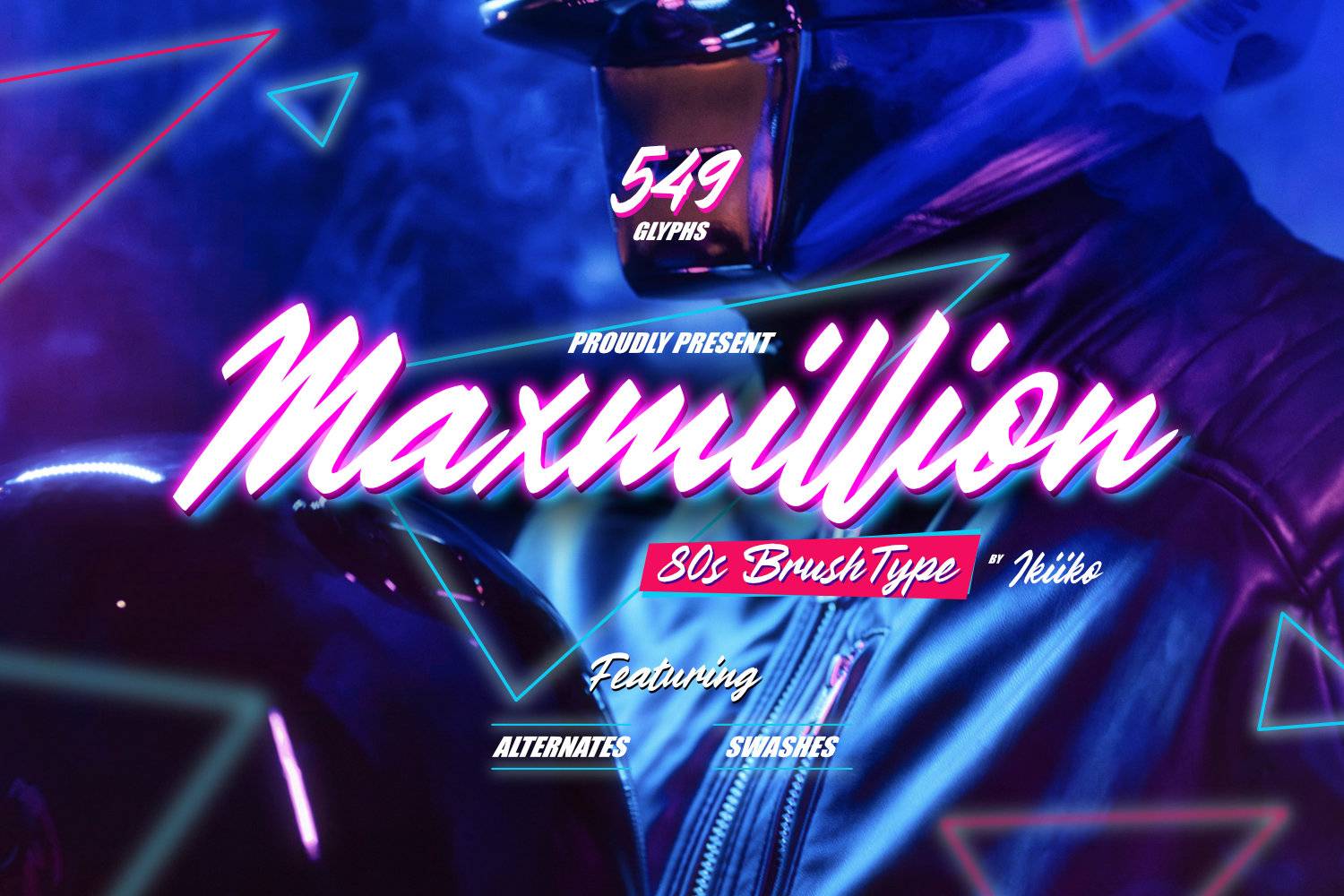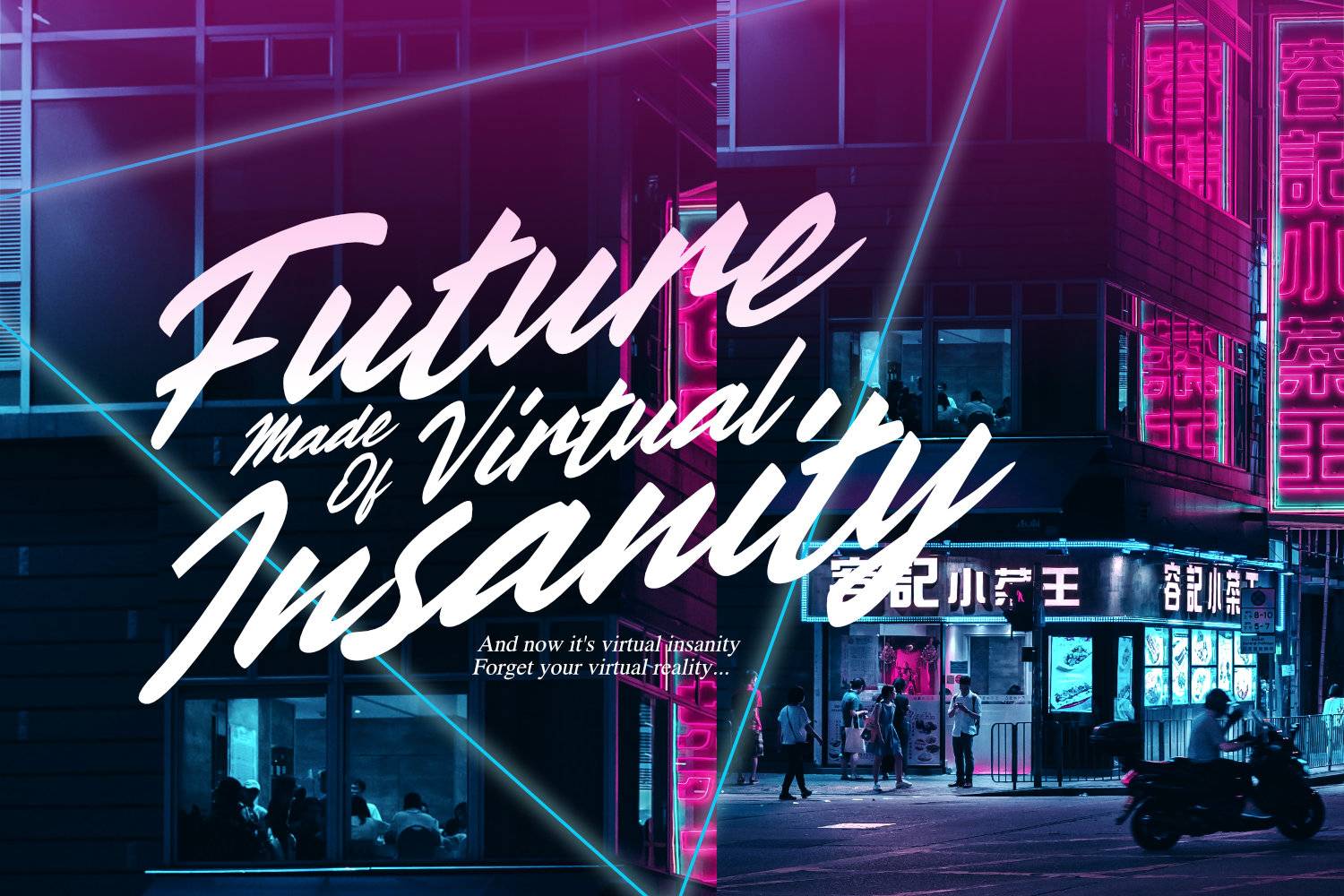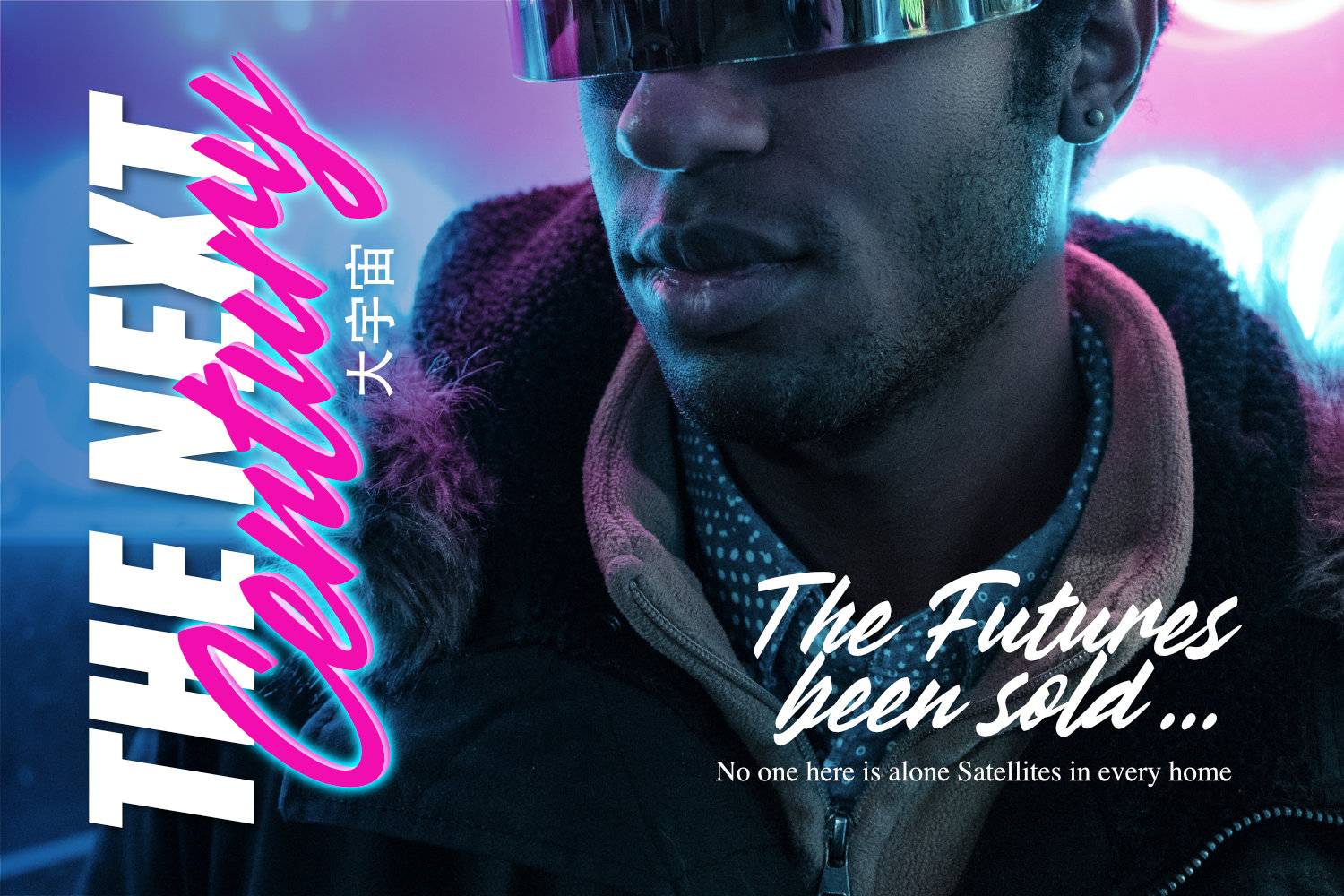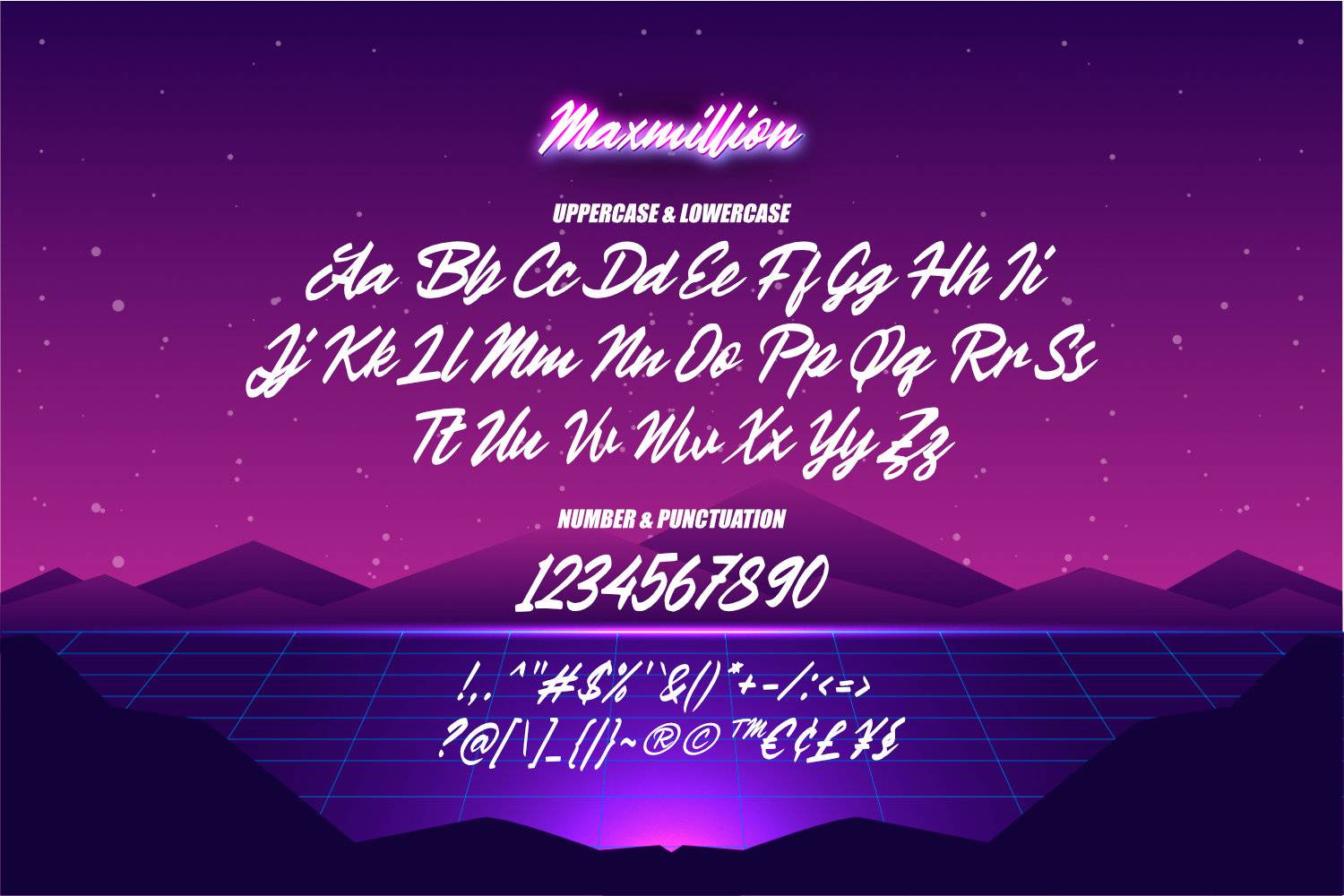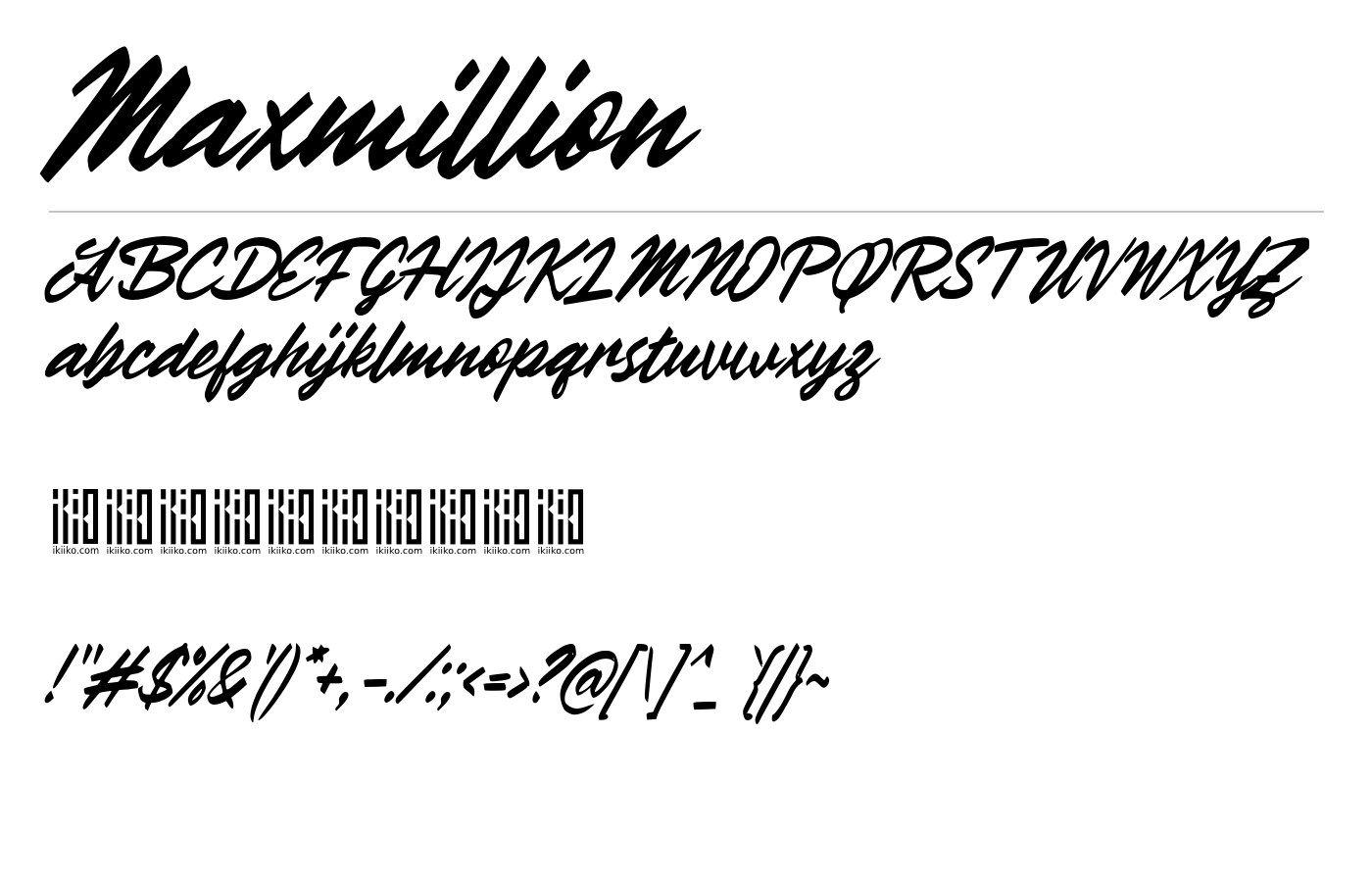
Maxmillion is a bold, script-style font that exudes a dynamic and expressive personality with its flowing, hand-lettered strokes and slightly exaggerated slant. Its lively and elegant curves make it perfect for eye-catching headlines, branding, and creative projects where a touch of modern sophistication and energetic flair is desired. This font works well for fashion, invitations, and logos, adding a distinctive, stylish vibe that commands attention.
Maxmillion Font
About Maxmillion Font
| Font family | Maxmillion Font |
| Designer | Andhika Pradana, Wahyu Eka Prasetya |